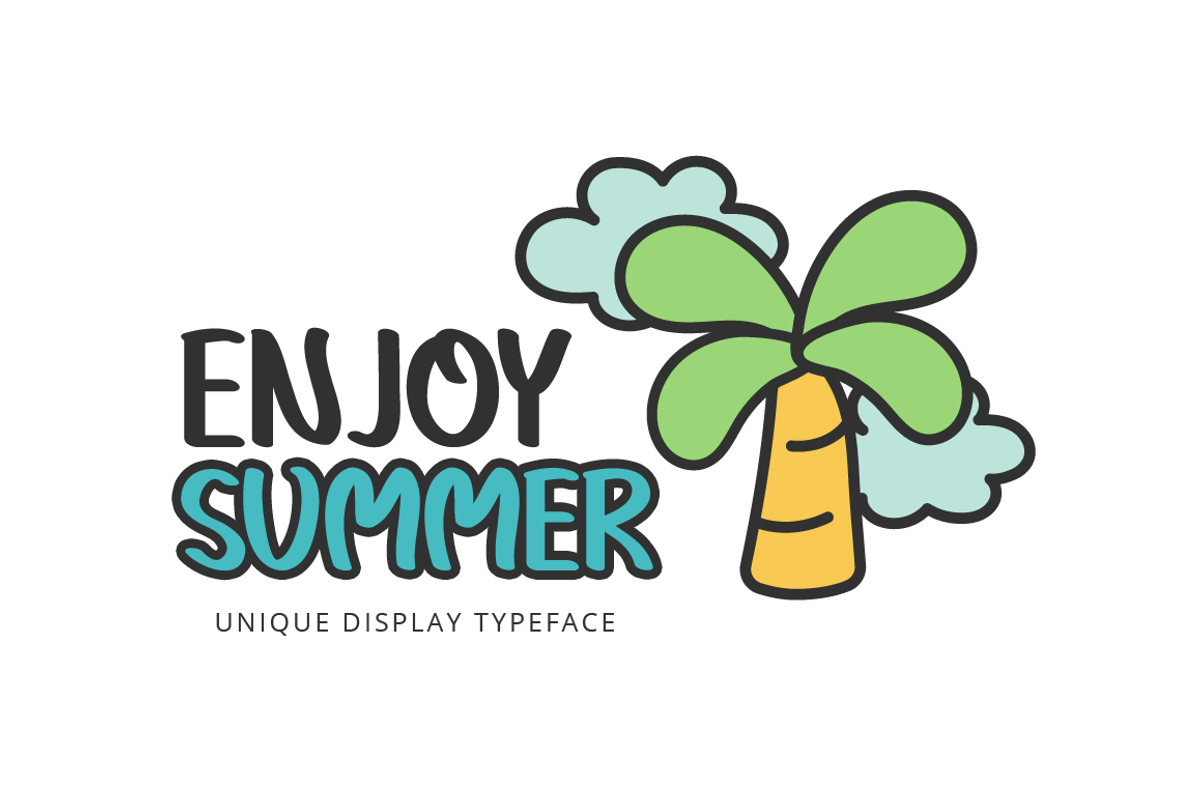
Enjoy Summer Typeface Free Download is a fun, vibrant, and sunny typeface designed to capture the carefree spirit of summer. With its playful curves and hand-lettered style, this font is perfect for beach party invitations, travel blogs, tropical branding, summer-themed merchandise, and social media graphics.
This typeface brings warmth and joy to your designs—evoking feelings of sunshine, ocean breezes, and laid-back adventures. Whether you’re creating postcards, drink labels, or seasonal ads, Enjoy Summer adds a splash of personality and creativity.